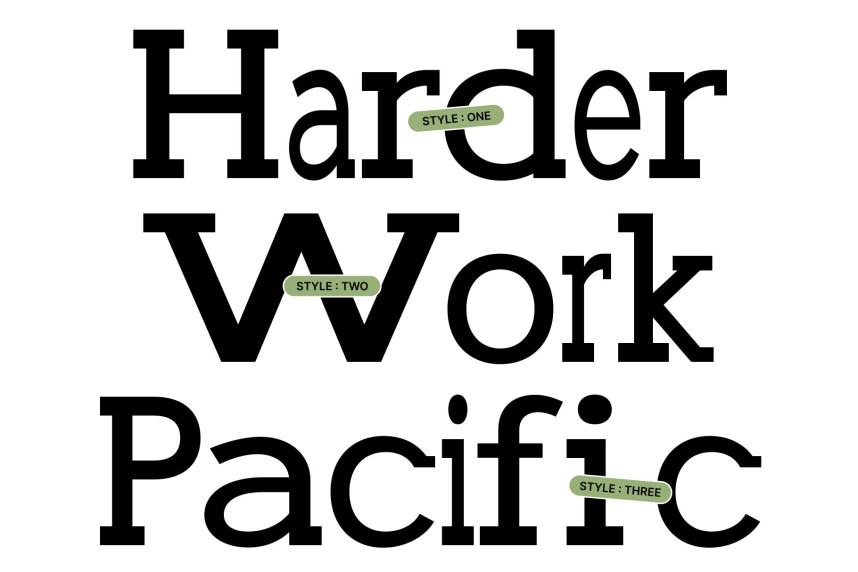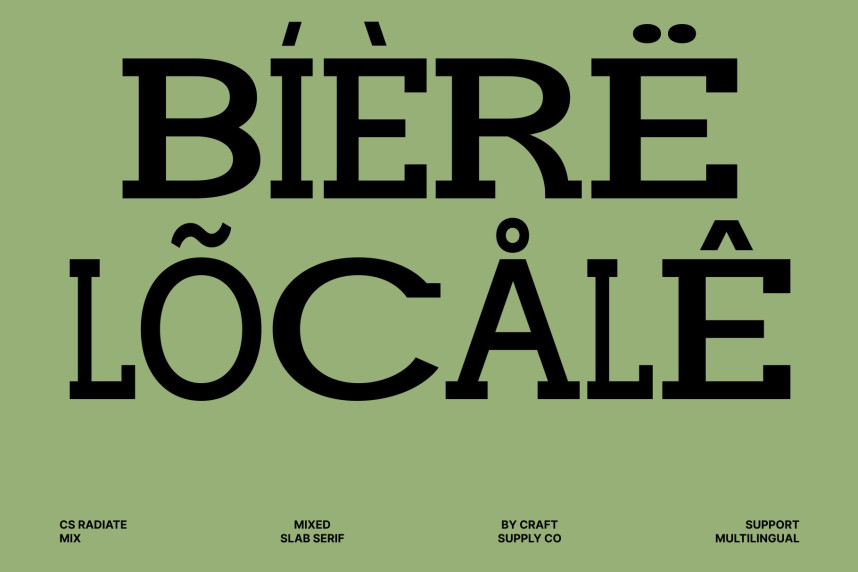
CS Radiate Mix Font
CS Radiate Mix Font – Bold Slab Serif Font: Powerful Structure with Contemporary Confidence
Bold Slab Serif with Mixed Style Character
This is a bold slab serif font designed to express strength, authority, and modern visual impact. Built with thick serifs, geometric proportions, and a commanding structure, this typeface introduces a distinctive mixed-style concept that adds rhythm and contrast to every composition. It transforms bold typography into a dynamic visual element that feels sturdy, modern, and highly professional.